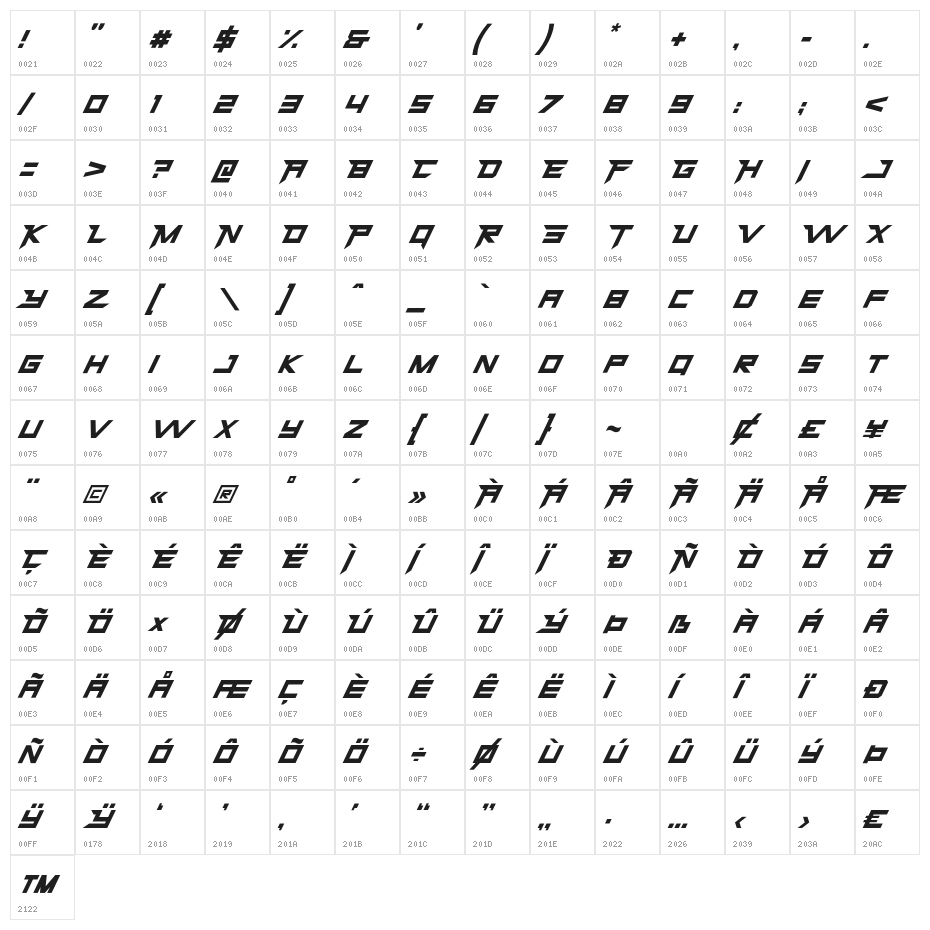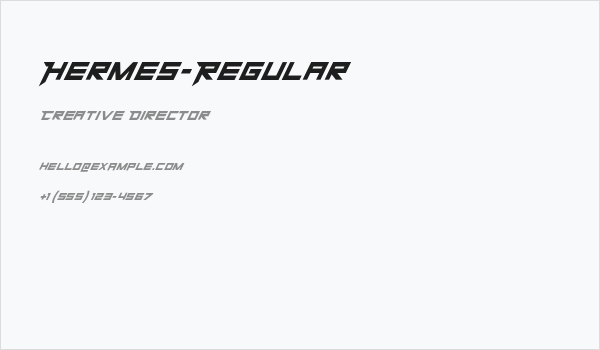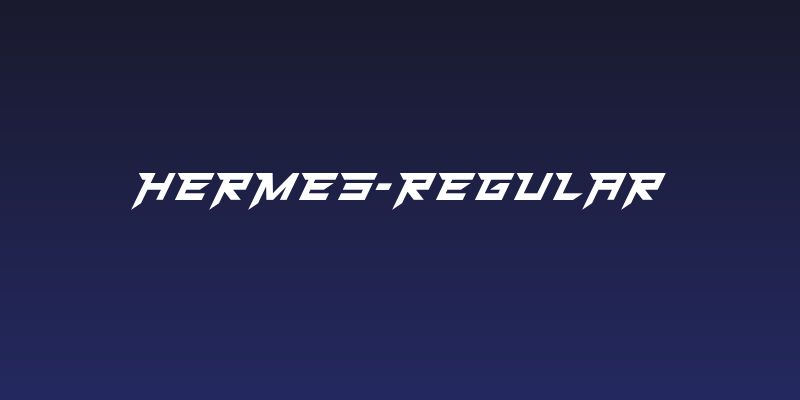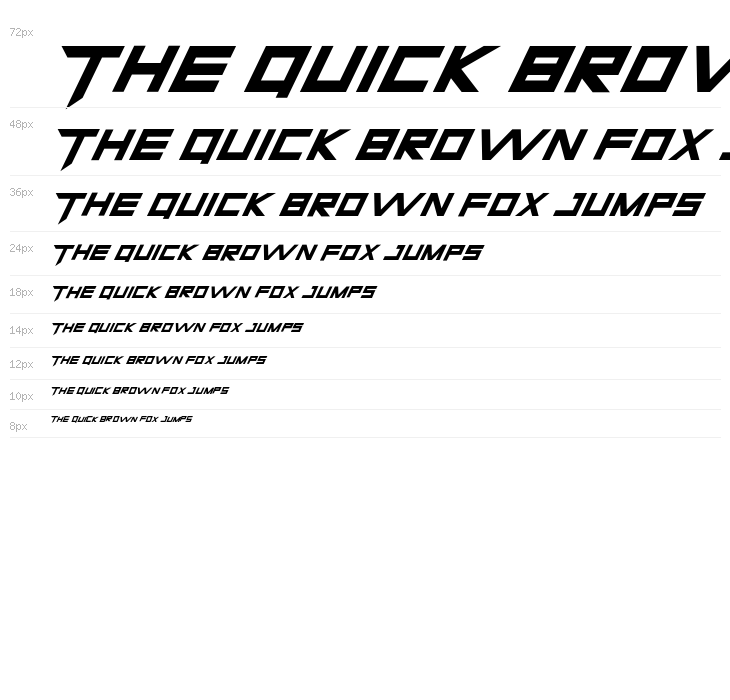
Hermes-Regular Font
Hermes-Regular Description
This font features a dynamic and angular design, characterized by sharp edges and a futuristic aesthetic. The letters are slightly slanted, giving a sense of motion and speed. The uppercase and lowercase characters maintain a consistent style, with bold strokes and geometric shapes. The numbers and special characters follow the same design principles, ensuring uniformity across all elements. This font is ideal for projects that require a modern and edgy look, such as technology branding or sports team logos.
HERMES-REGULAR UPPERCASE
HERMES-REGULAR LOWERCASE
HERMES-REGULAR OTHER CHARS
| Use Case | Logos, Headlines |
| Proposed Projects | Ideal for technology branding, sports team logos, and modern advertising campaigns. |